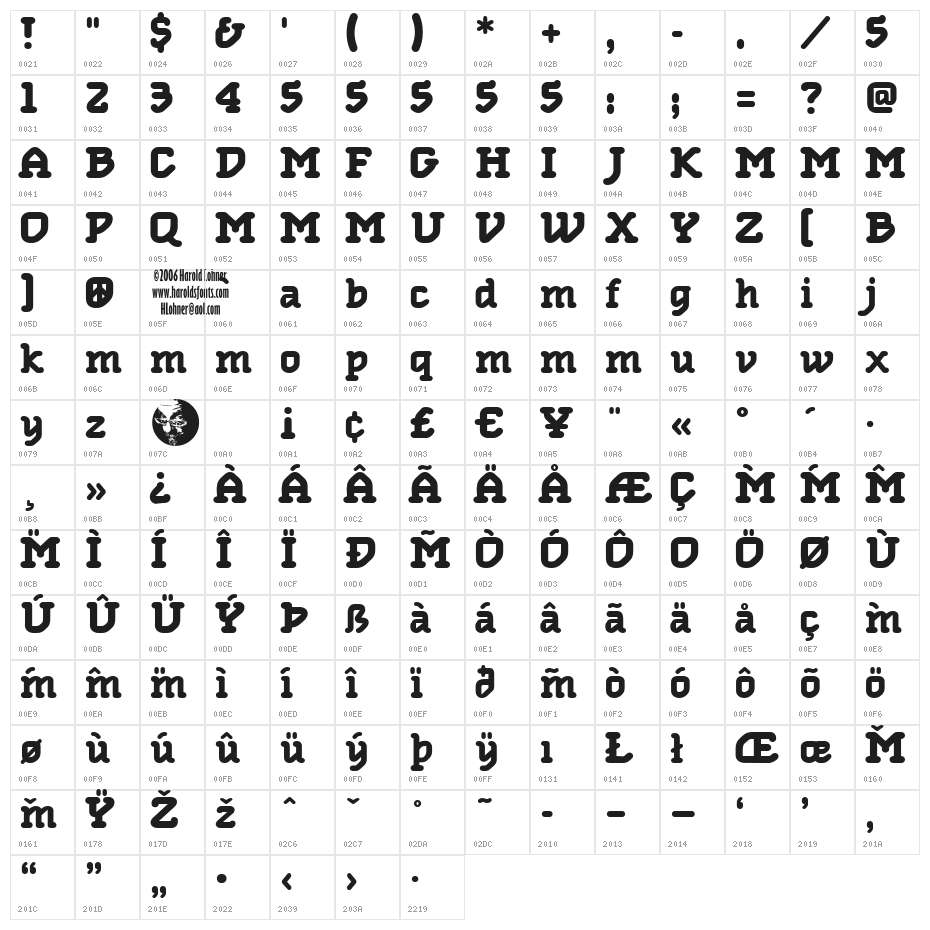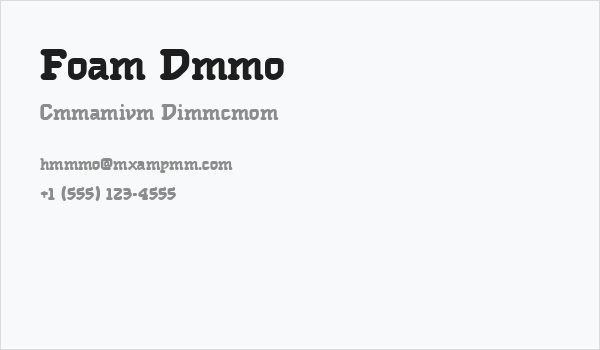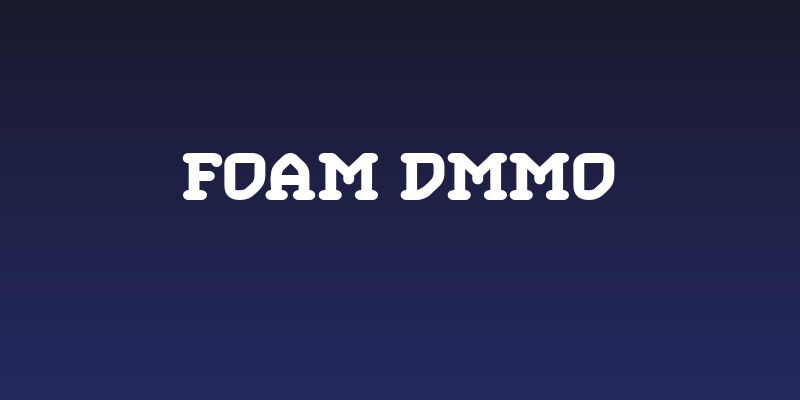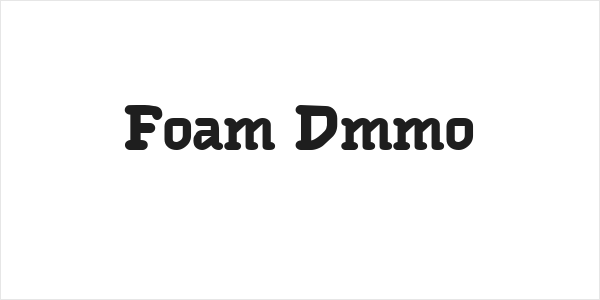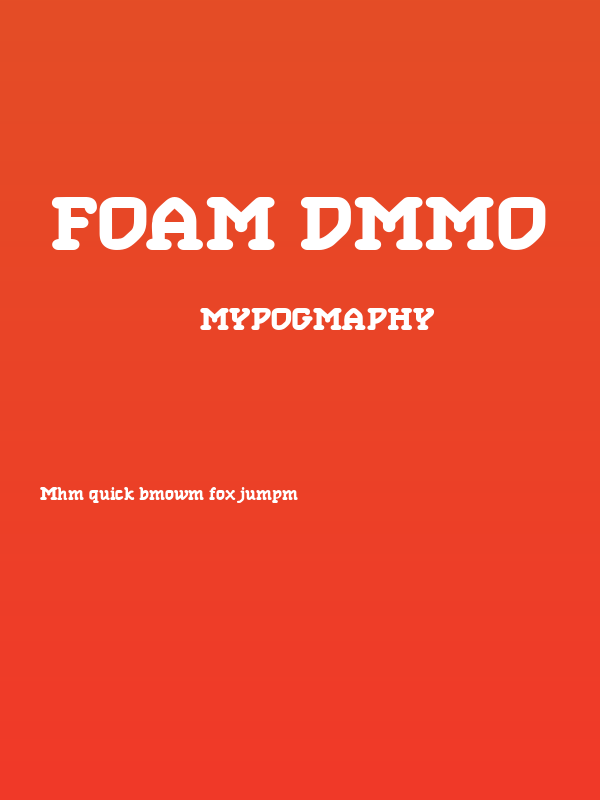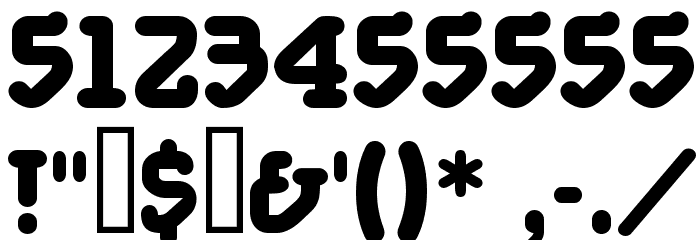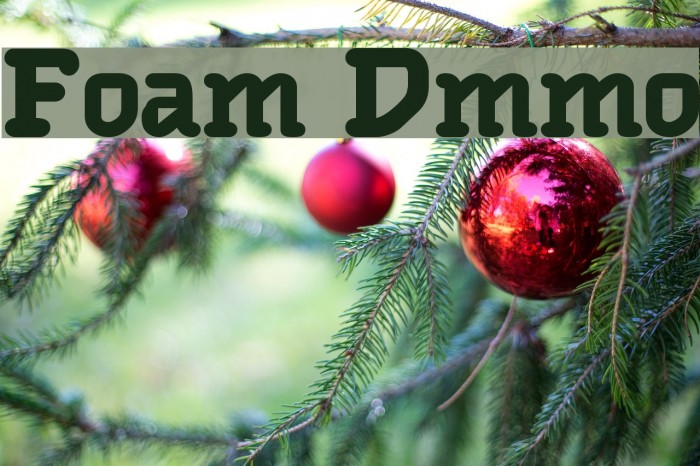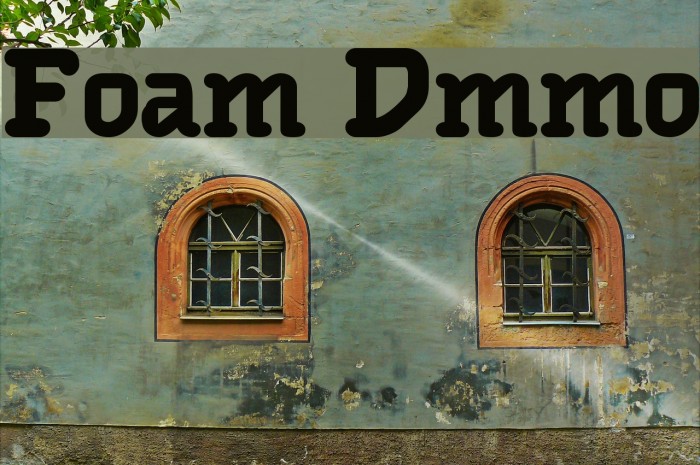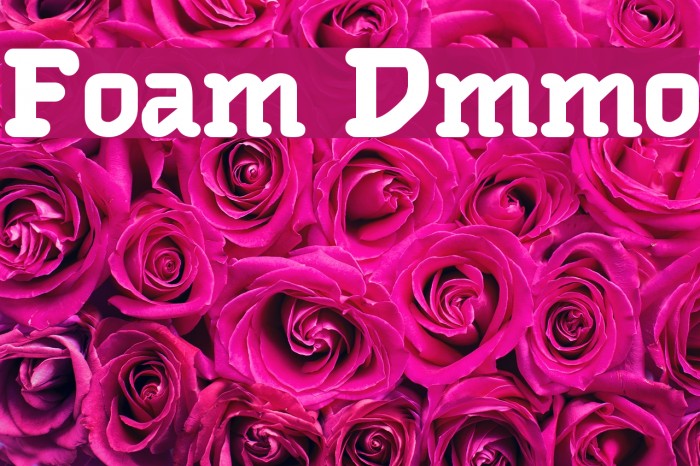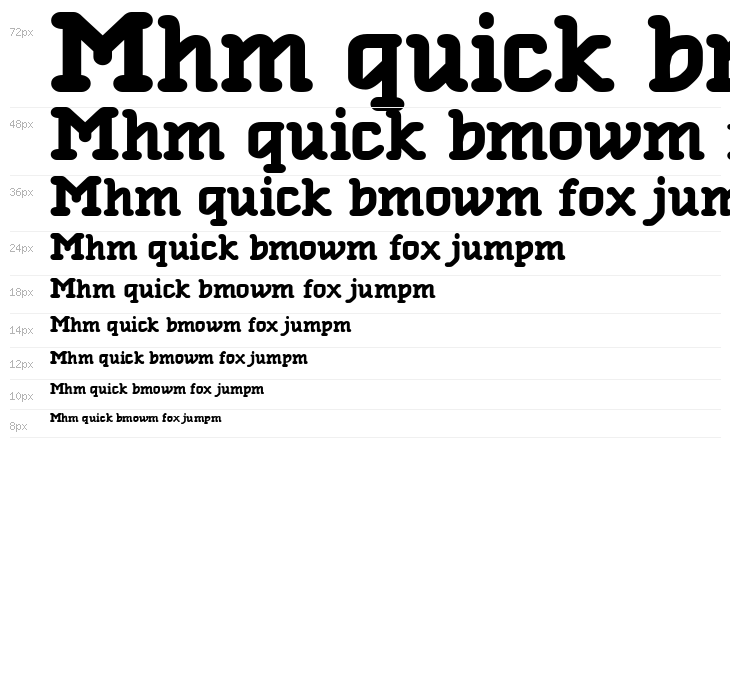
Foam Demo Font
Foam Demo Description
This font features a bold and rounded style with a playful and approachable appearance. The characters are well-defined with a consistent stroke width, giving it a uniform look. The rounded edges and thick lines contribute to its friendly and informal vibe, making it suitable for designs that aim to be inviting and engaging. The font maintains a consistent weight throughout, ensuring readability and clarity. It includes a full set of uppercase and lowercase letters, numbers, and a variety of special characters, making it versatile for different uses.
| Overall Style | Playful, Friendly |
| Proposed Projects | Ideal for children's books, playful branding, posters, and casual invitations. |